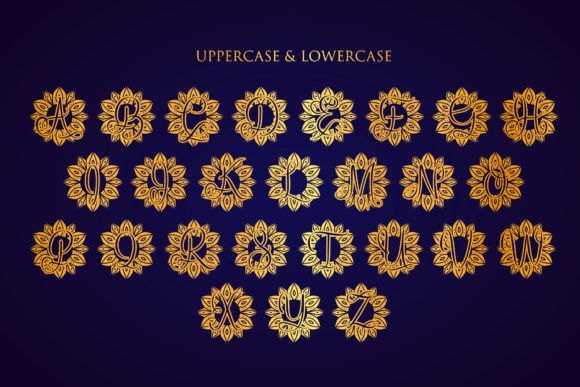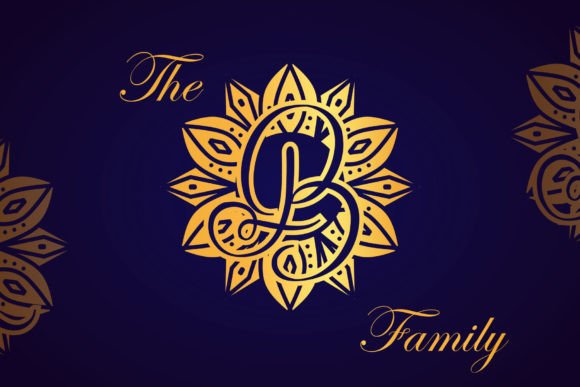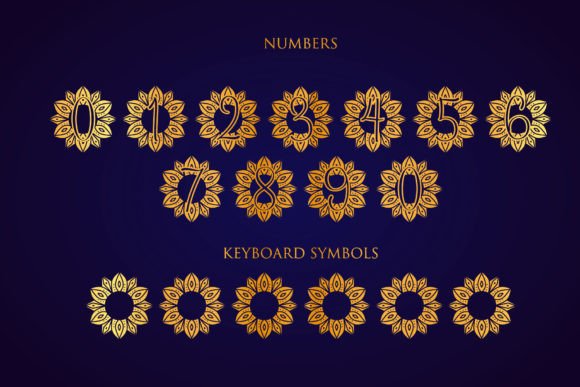
Introduction to Sense Mandala Monogram Font Font
Fonts play a crucial role in design, and the Sense Mandala Monogram Font font is a typeface that brings both character and versatility to any project. Whether you’re working on a branding project, a website, or a print design, the Sense Mandala Monogram Font font offers a unique style that can elevate your work.
Sense Mandala Monogram is an elegant and unique decorative font, inspired by the elegance of mandala art.
Use it for your craft, logo, or anything in your collection .
Key Features of Sense Mandala Monogram Font Font
Why Choose Sense Mandala Monogram Font Font?
The Sense Mandala Monogram Font font is more than just a typeface – it’s a design tool that helps you communicate your message with style and clarity. Its unique character set and versatile design make it suitable for a wide range of applications, from elegant invitations to bold headlines.
With its carefully crafted letterforms and balanced proportions, the Sense Mandala Monogram Font font ensures readability and visual appeal across all mediums.
What makes Sense Mandala Monogram Font font special?
The Sense Mandala Monogram Font font stands out with its unique design, exceptional readability, and versatility across various design applications.